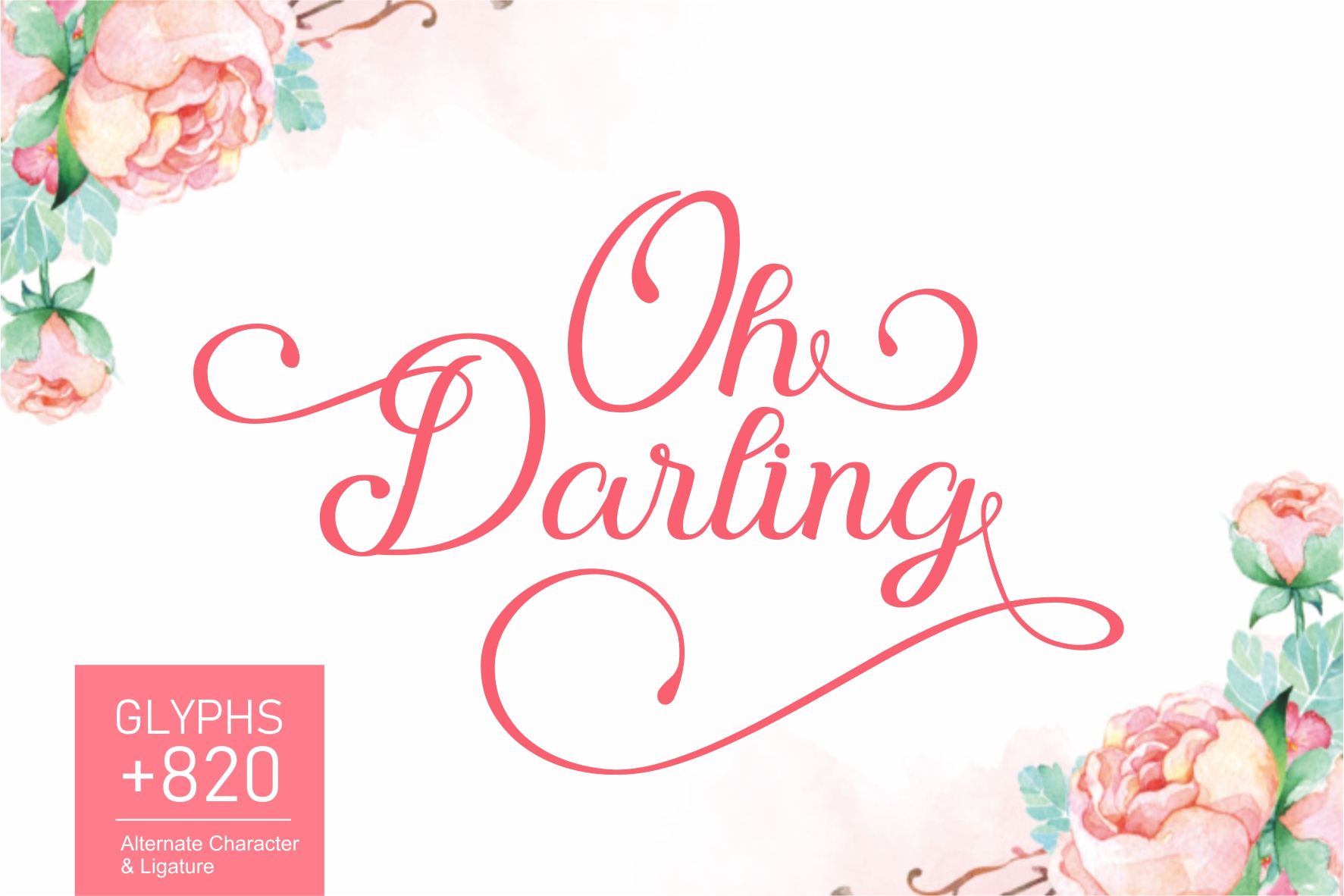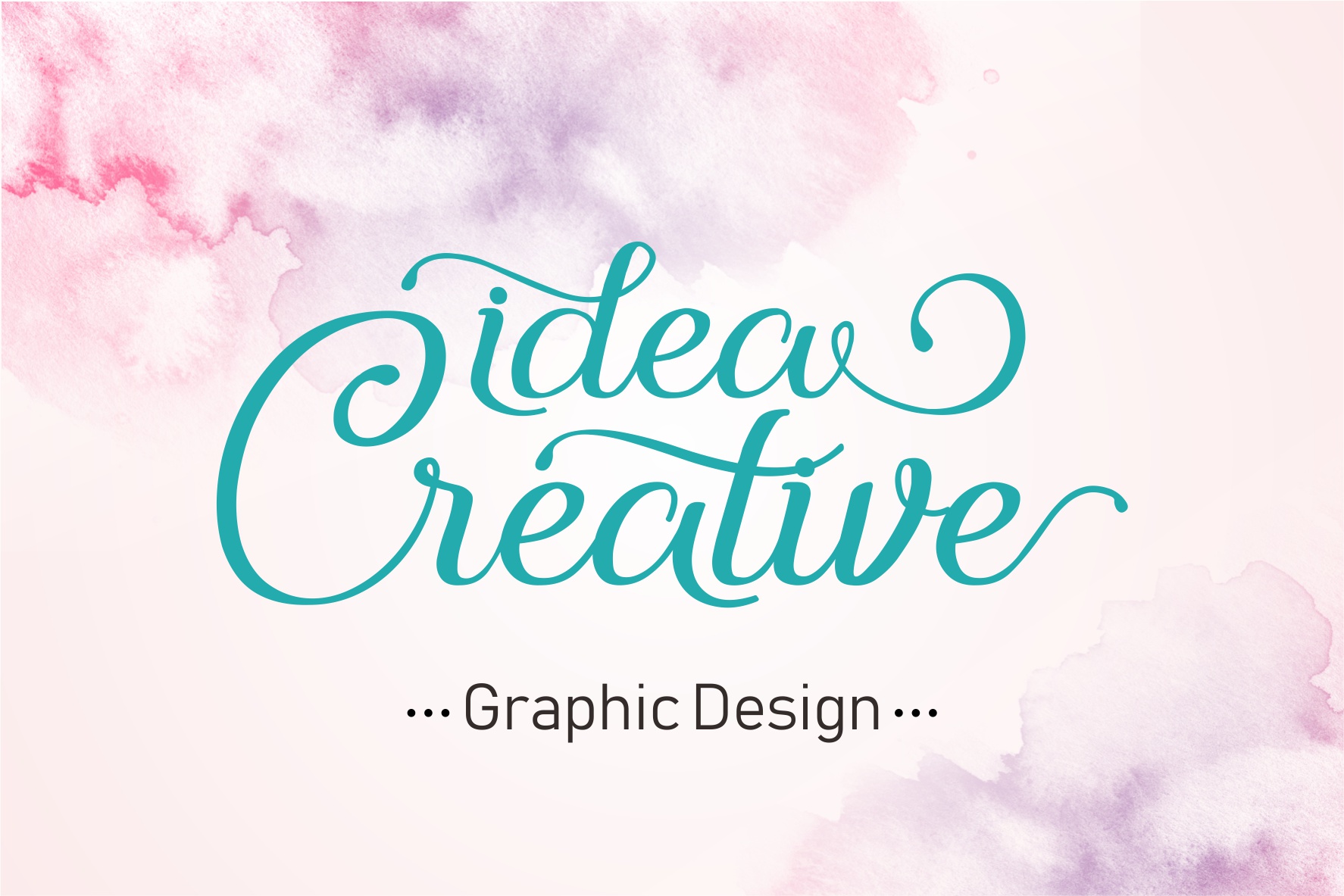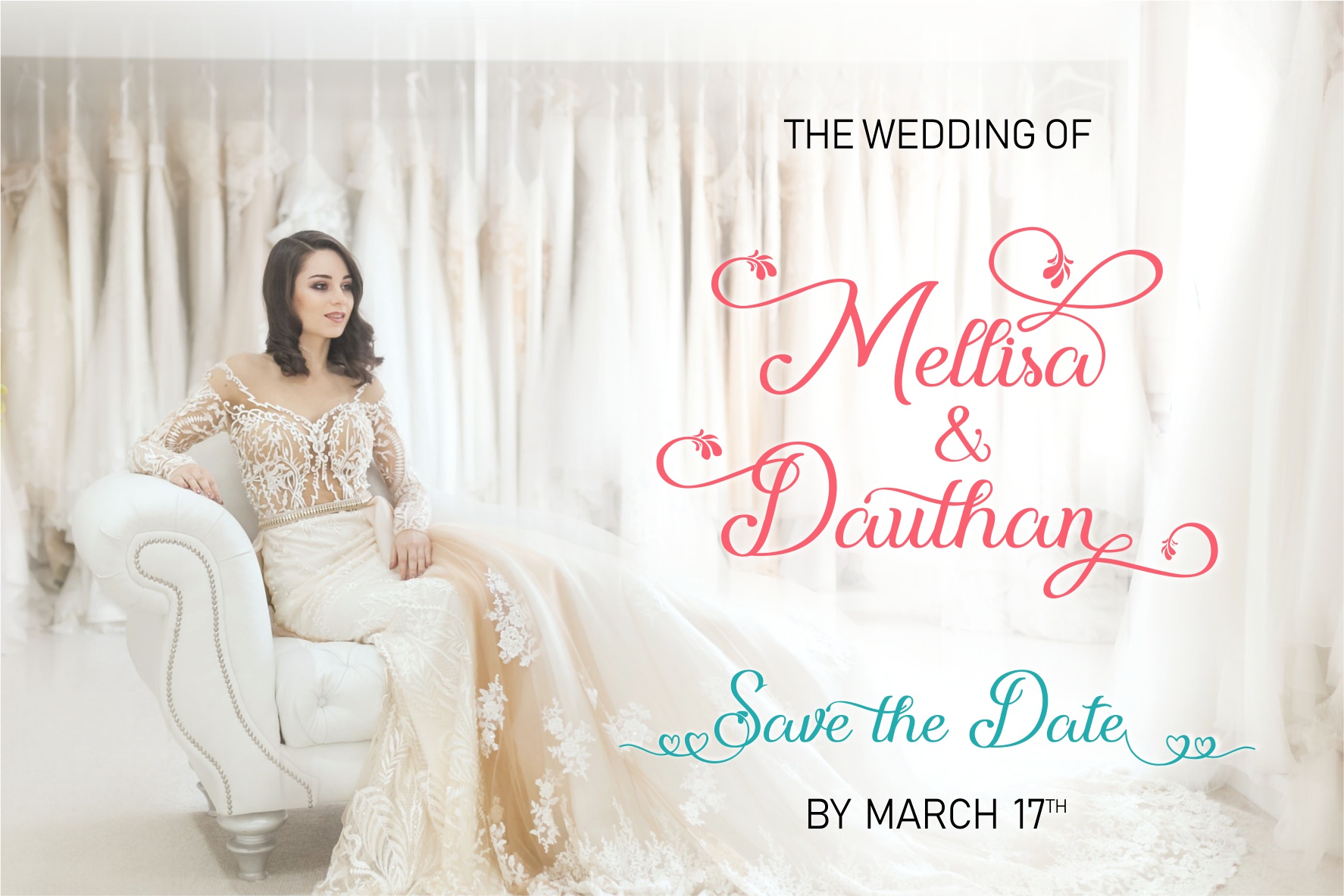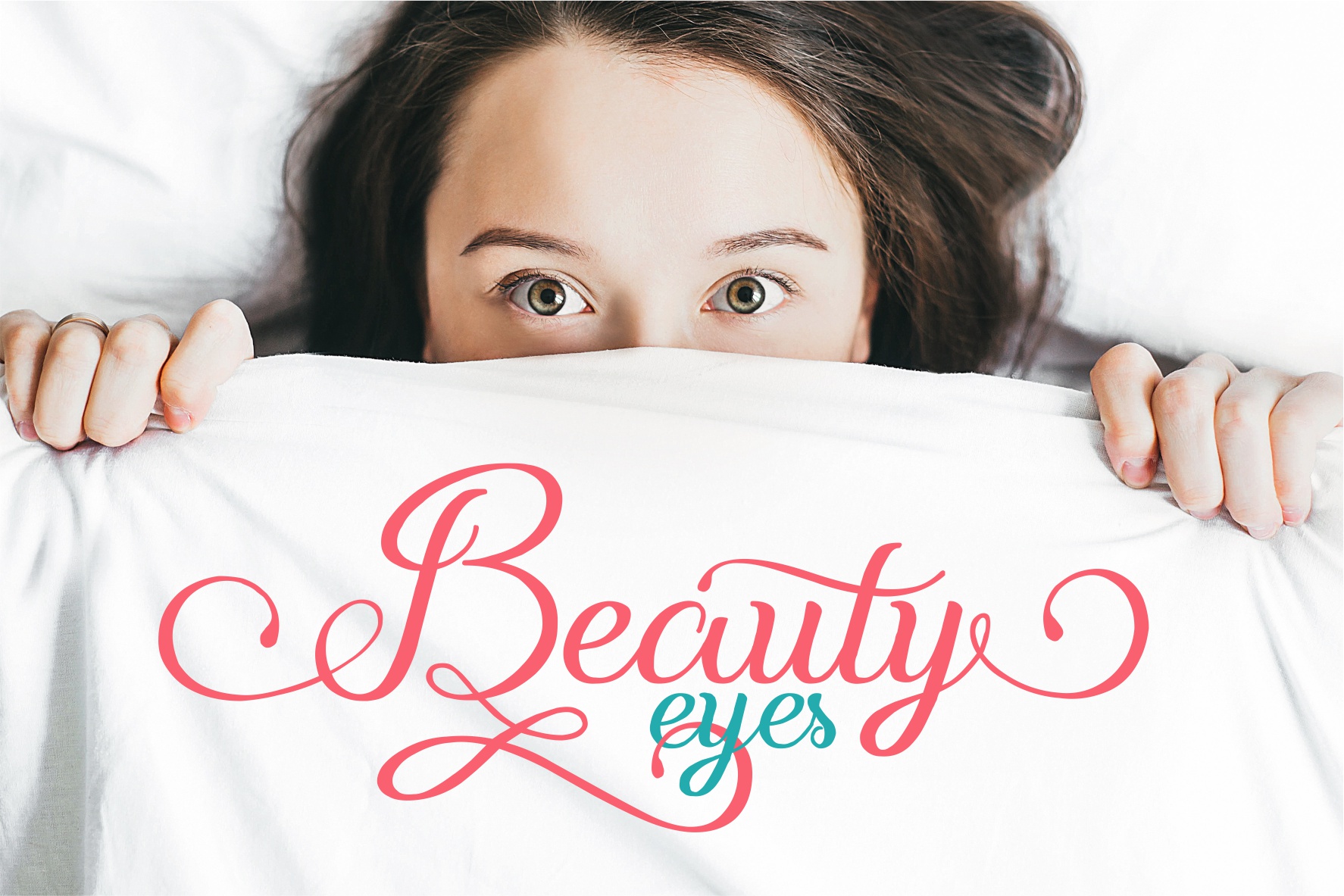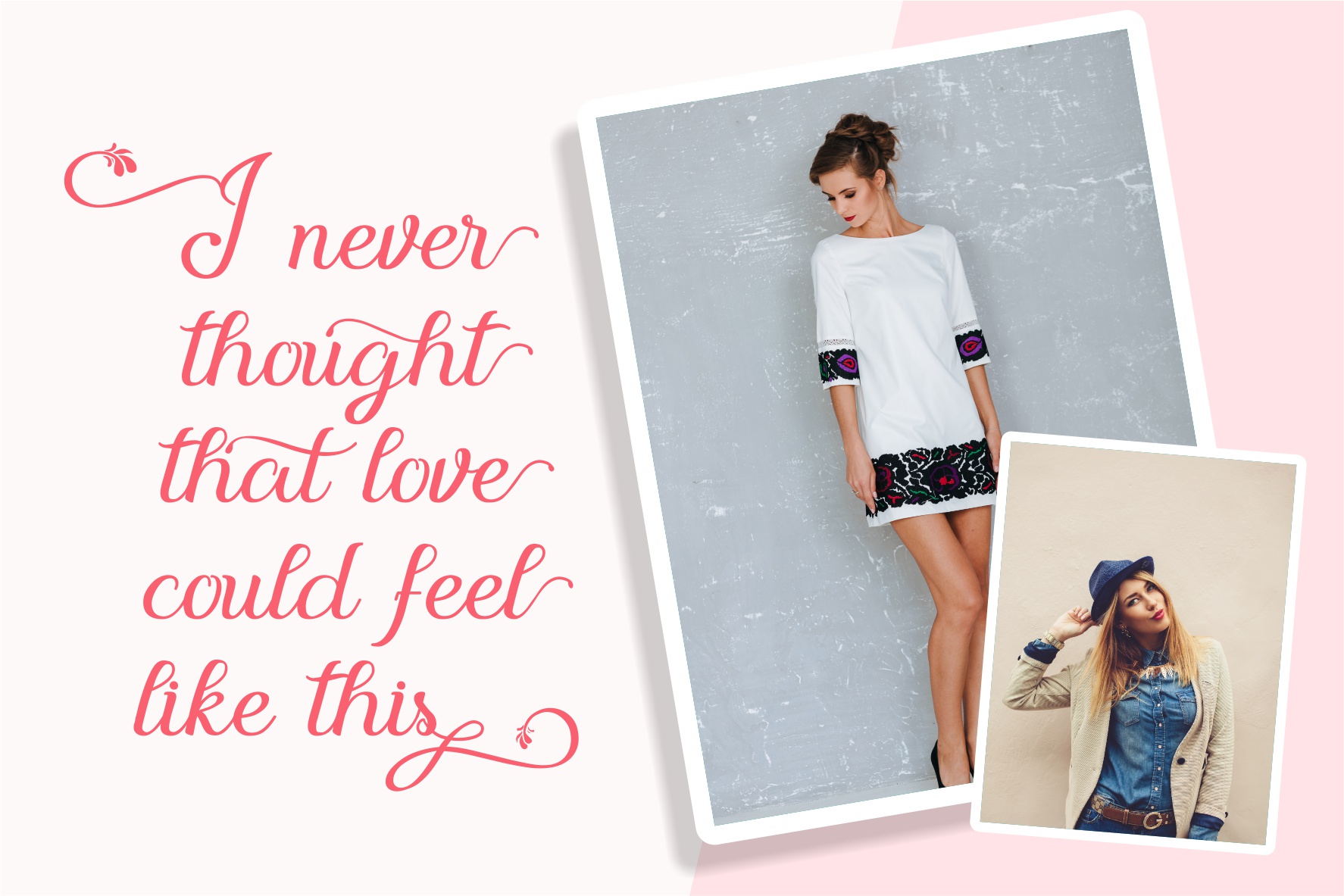
Oh Darling Font
About Oh Darling Font
Oh Darling is fresh & modern script with a handmade calligraphy style. It features decorative characters and a dancing baseline!
It works great for many different uses, such as invitations, greeting cards, branding materials, business cards, quotes & posters, lettering and much more.
It’s packed with over 820 unique glyphs.